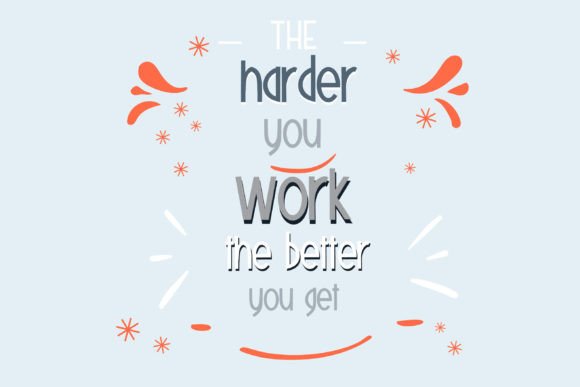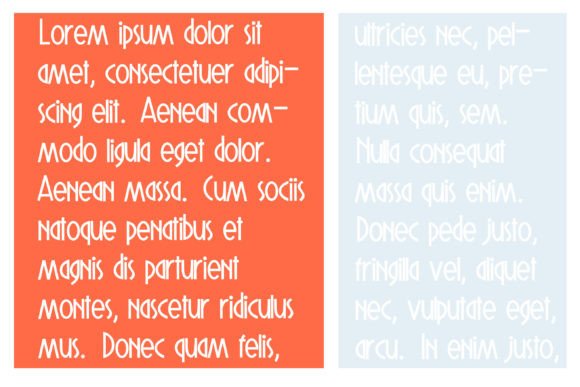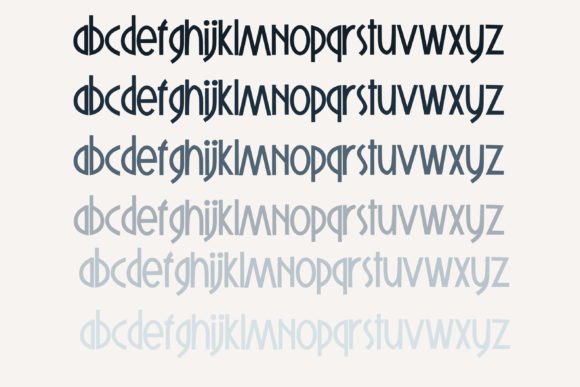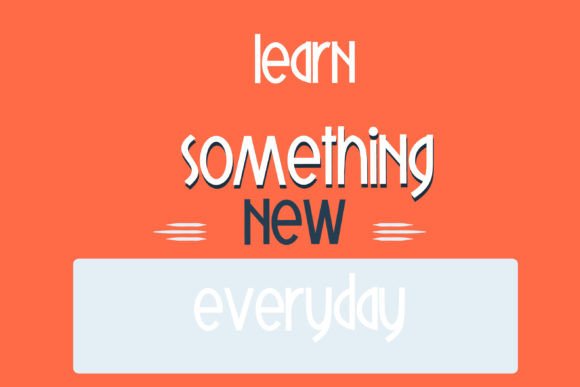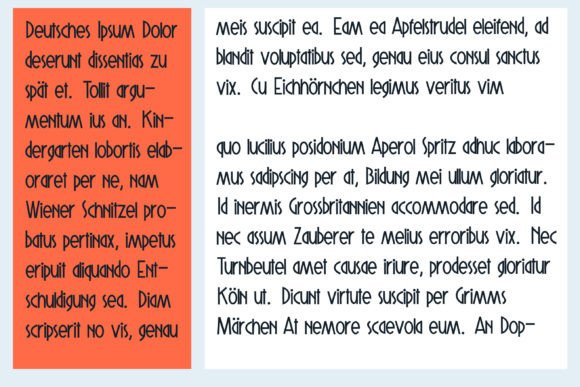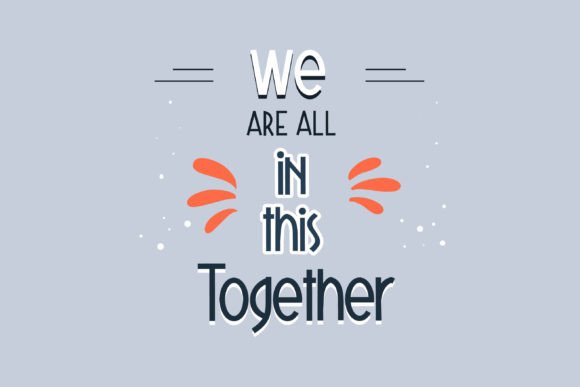
Geriatric Font: The Modern and Cool Sans Serif for Your Design Needs
In the world of typography, fonts play a crucial role in conveying messages, expressing emotions, and creating visual identities. For designers and crafters, finding the perfect font can be a daunting task, especially when it comes to creating modern and engaging designs. This is where Geriatric Font comes in – a sleek and contemporary sans serif font that’s perfect for a wide range of applications.
What is Geriatric Font?
Geriatric Font is a modern sans serif font that’s designed to be neat, sleek, and highly versatile. Its clean lines, simple shapes, and minimalist aesthetic make it an excellent choice for designers looking to create fresh and engaging designs. Whether you’re working on posters, headlines, stationery, or even apparel and accessories, Geriatric Font is the perfect companion for your creative projects.
Key Features of Geriatric Font
So, what makes Geriatric Font stand out from the rest? Here are some of its key features:
• Modern and Cool Design: Geriatric Font boasts a modern and cool design that’s perfect for creating trendy and eye-catching designs.
• Sans Serif Style: The font’s sans serif style gives it a clean and minimalist look that’s ideal for a wide range of applications.
• Neat and Sleek: The font’s neat and sleek design makes it perfect for use in posters, headlines, and other visual materials where clarity and legibility are essential.
• Highly Versatile: Geriatric Font is designed to be highly versatile, making it suitable for use in various design projects, from stationery and apparel to accessories and more.
Use Cases for Geriatric Font
Geriatric Font is an incredibly versatile font that can be used in a wide range of design projects. Here are some use cases where Geriatric Font shines:
• Posters and Flyers: The font’s bold and modern design makes it perfect for creating eye-catching posters and flyers that grab attention.
• Headlines and Titles: Geriatric Font’s clean and minimalist design makes it an excellent choice for headlines and titles where clarity and legibility are crucial.
• Stationery and Branding: The font’s sleek and professional design makes it suitable for use in stationery, branding, and corporate identity projects.
• Apparel and Accessories: Geriatric Font’s modern and cool design makes it perfect for use in apparel and accessories, such as t-shirts, hats, and bags.
Why Choose Geriatric Font?
With so many fonts available, why choose Geriatric Font? Here are some compelling reasons:
• Unique and Modern Design: Geriatric Font’s unique and modern design sets it apart from other fonts, making it perfect for designers looking to create fresh and engaging designs.
• Highly Legible: The font’s clean and minimalist design ensures high legibility, even at small sizes.
• Easy to Pair: Geriatric Font is easy to pair with other fonts, making it a versatile addition to any design project.
• Support for Multiple Languages: The font supports multiple languages, making it a great choice for designers working on international projects.
In conclusion, Geriatric Font is a modern and cool sans serif font that’s perfect for designers and crafters looking to create fresh and engaging designs. Its clean lines, simple shapes, and minimalist aesthetic make it an excellent choice for a wide range of applications, from posters and headlines to stationery and apparel. With its unique design, high legibility, and versatility, Geriatric Font is a great addition to any design project.